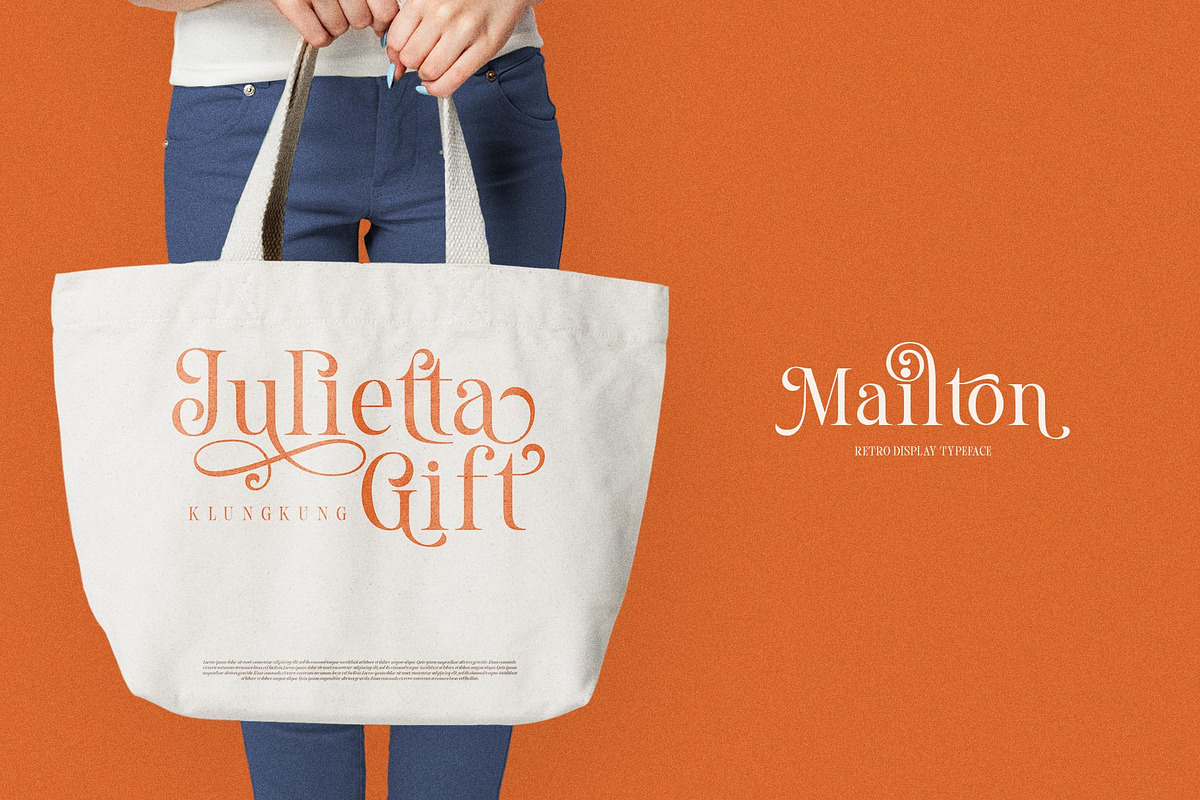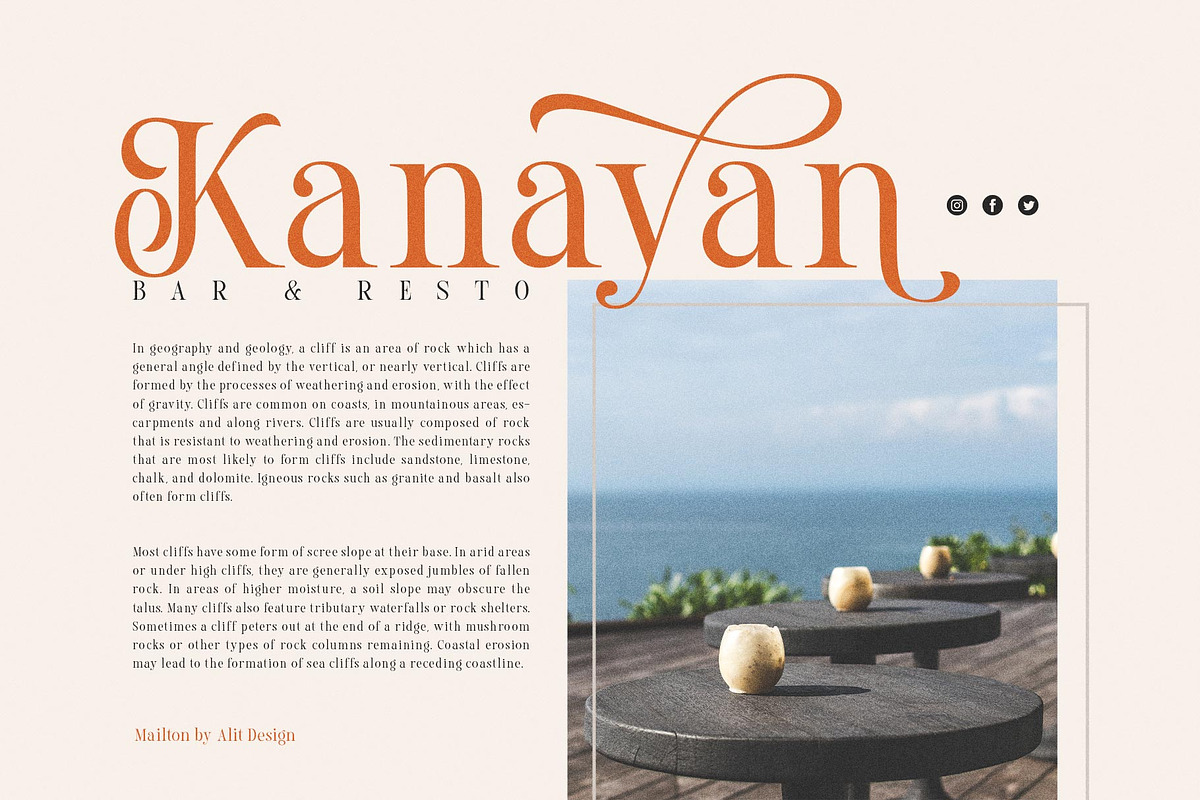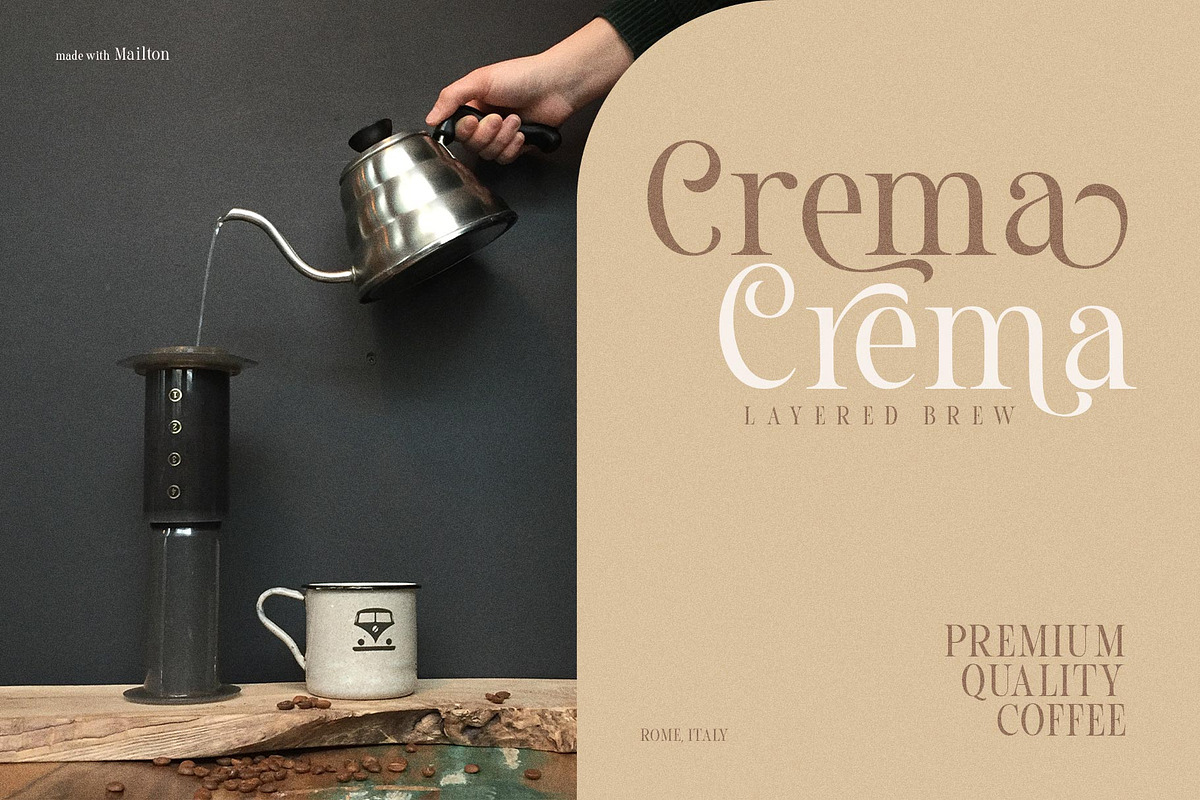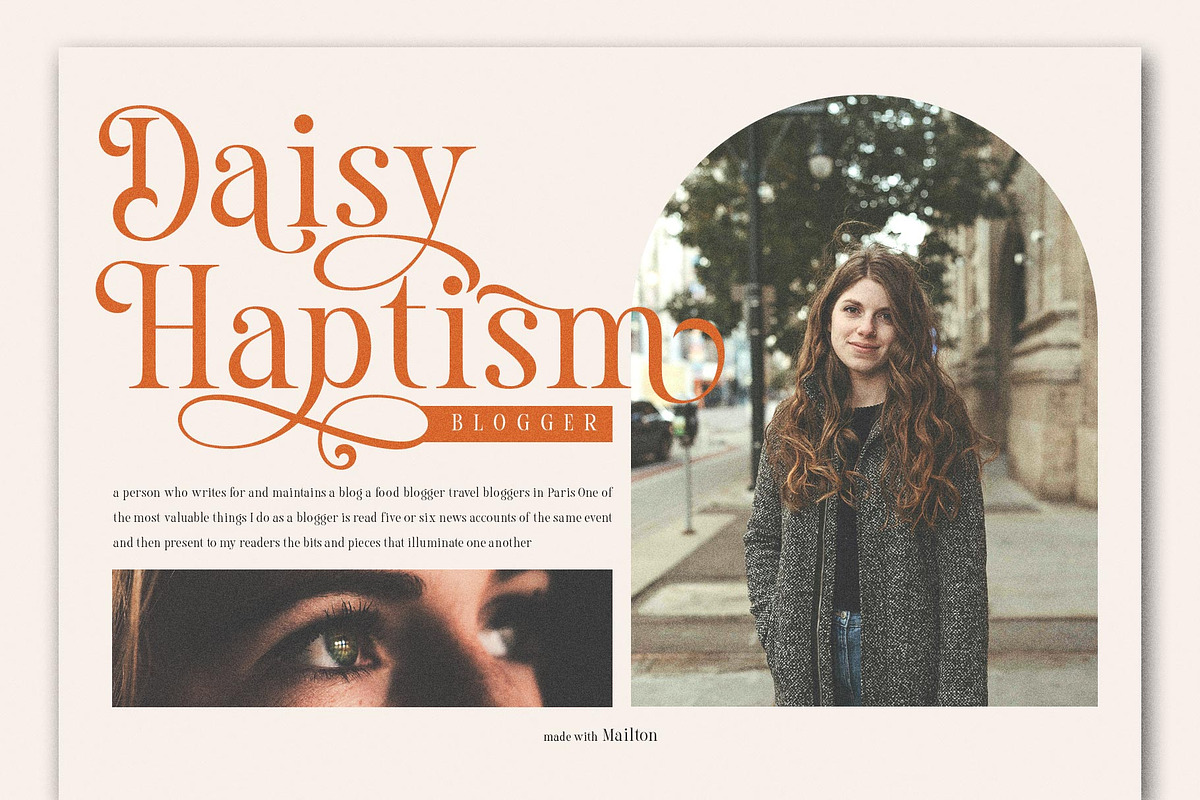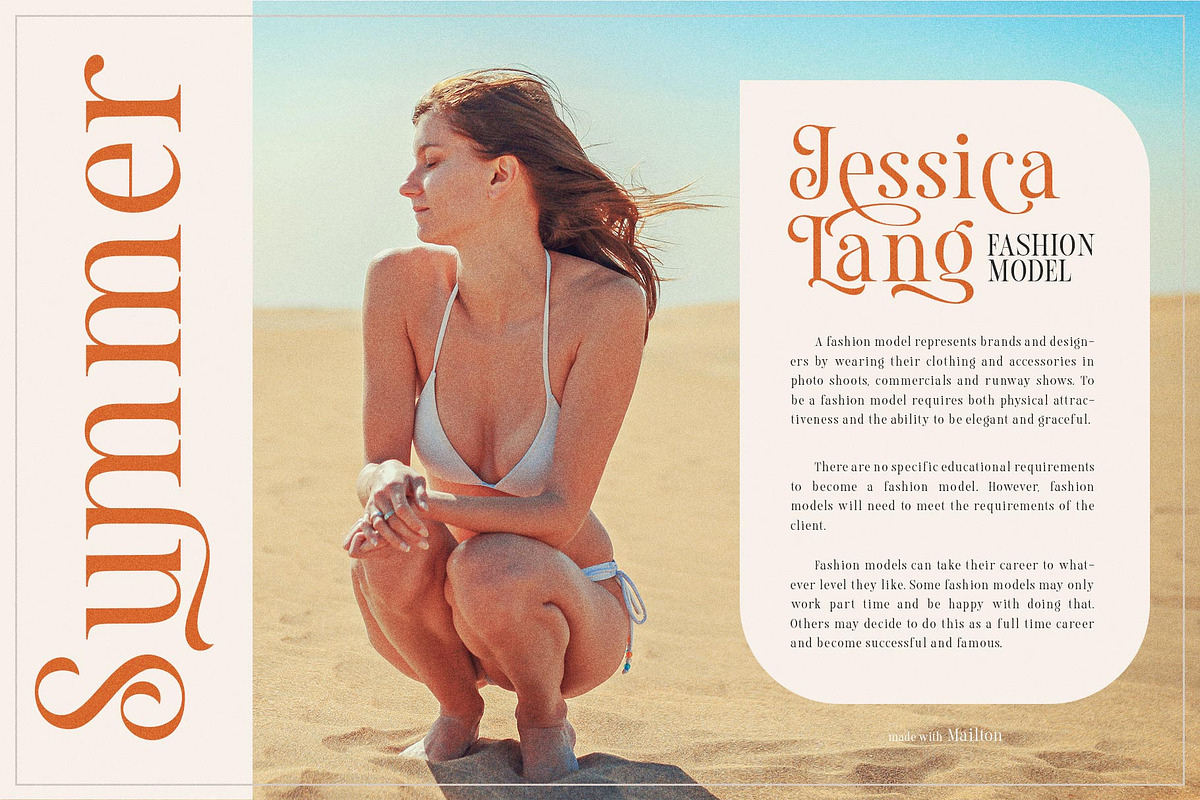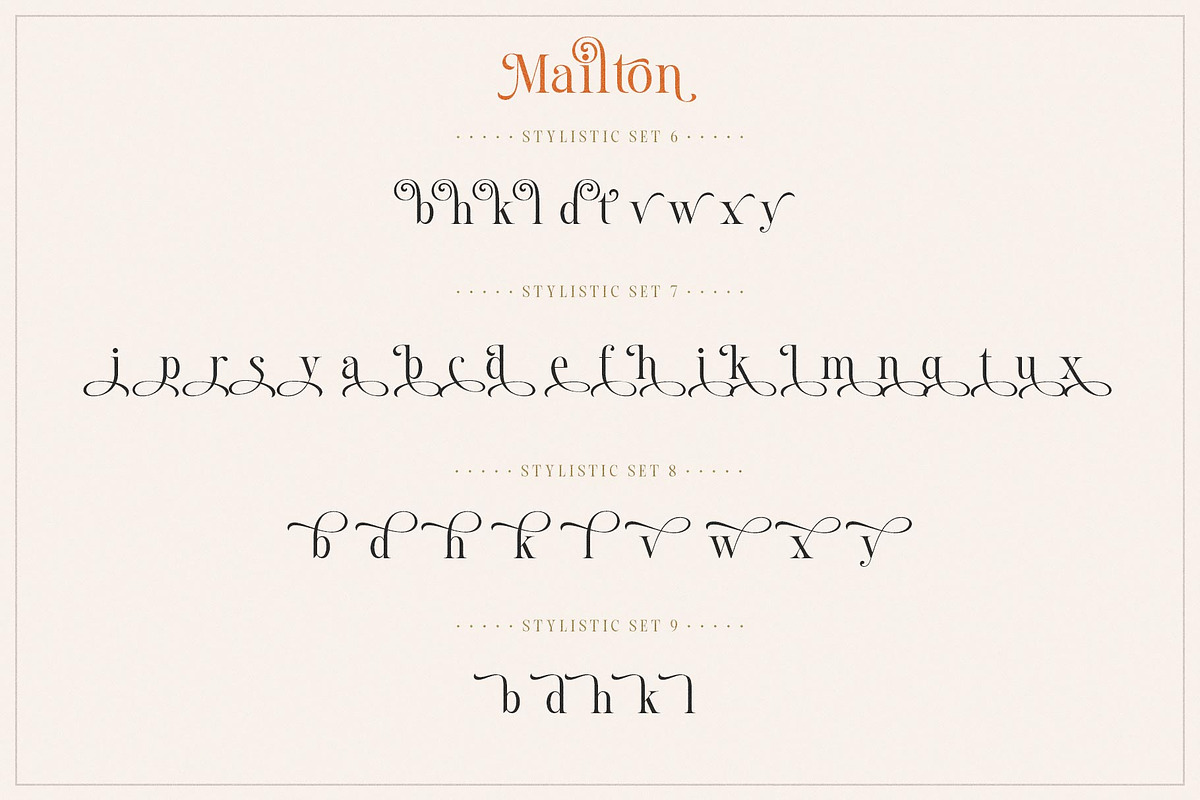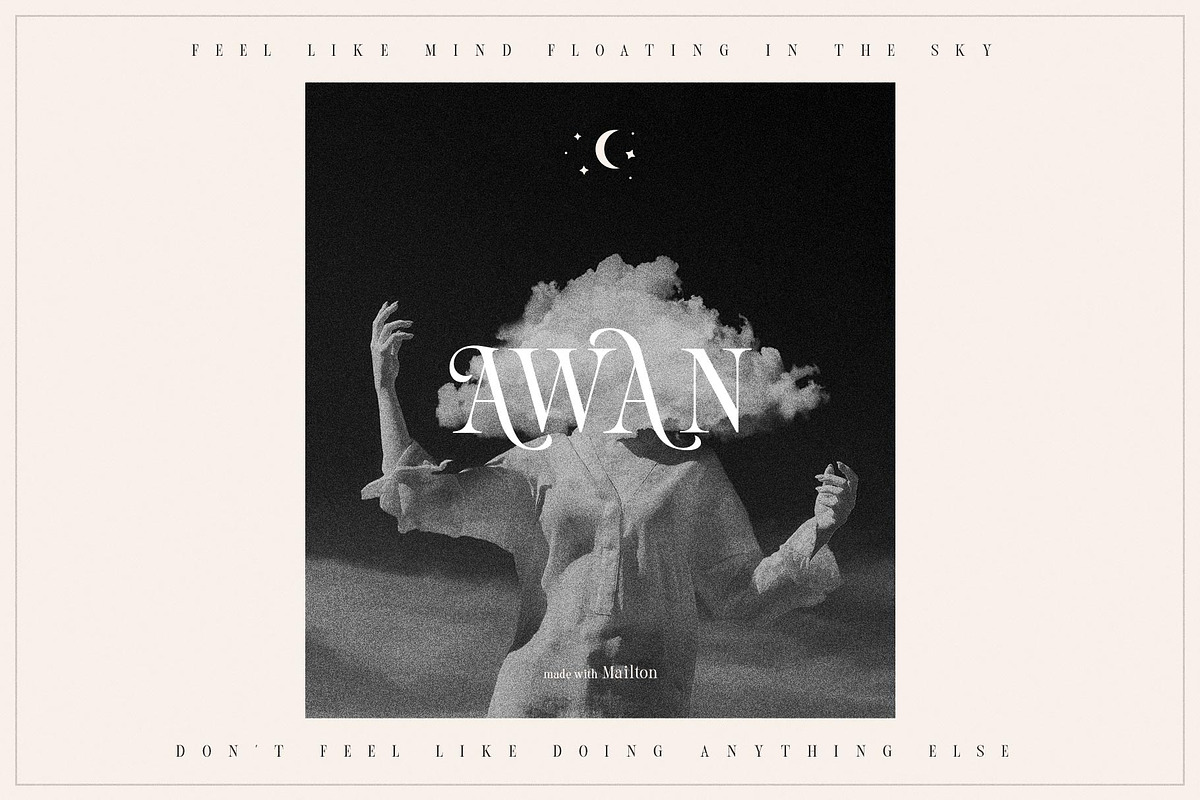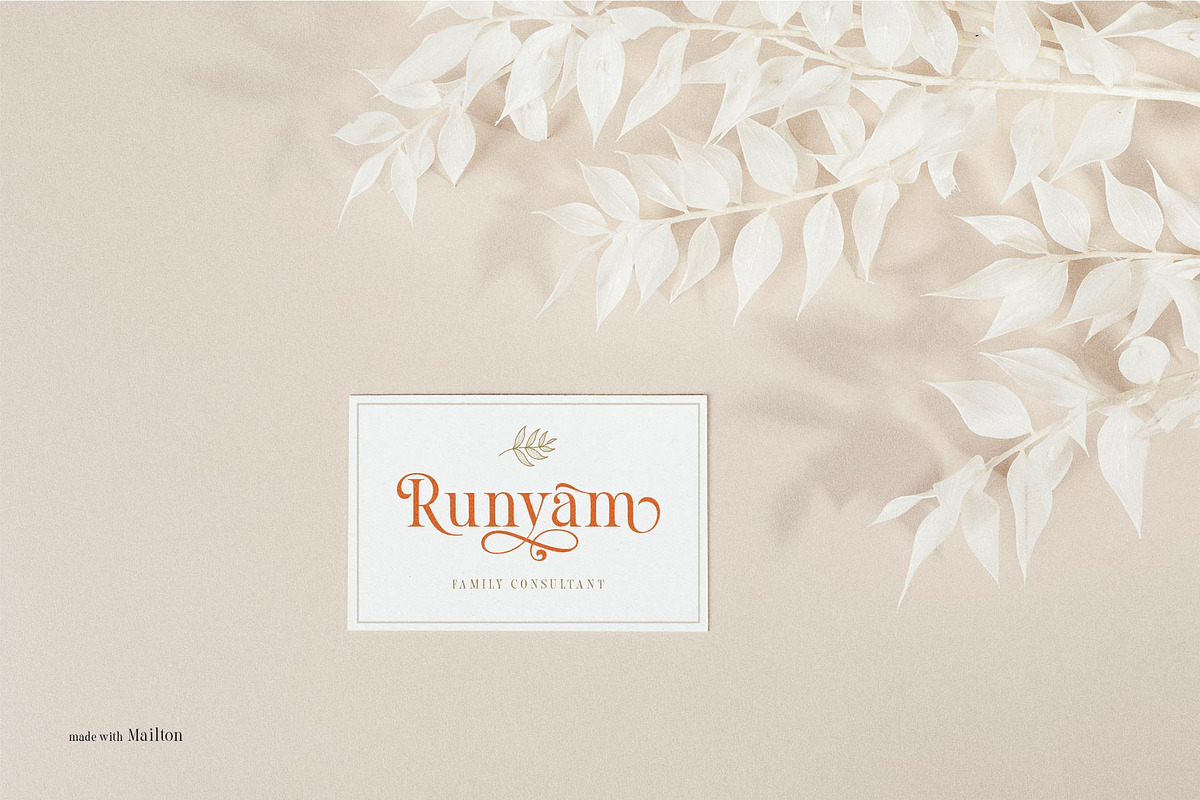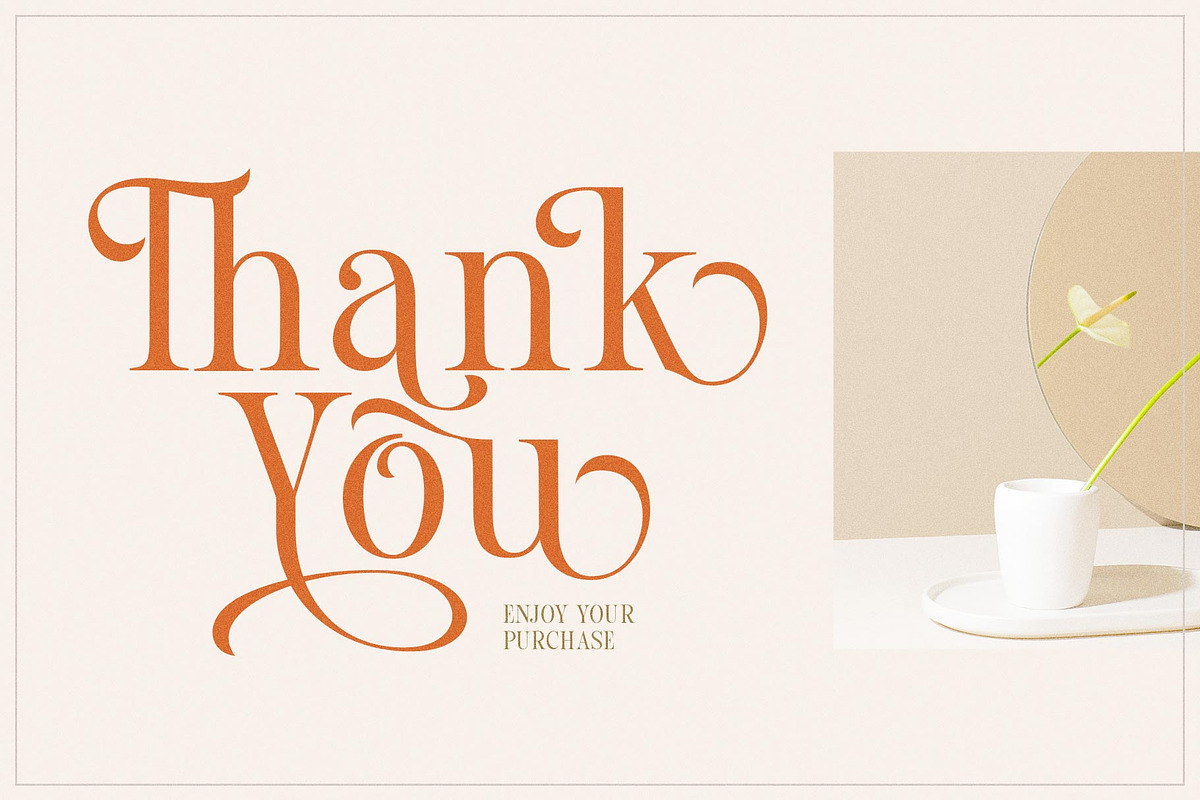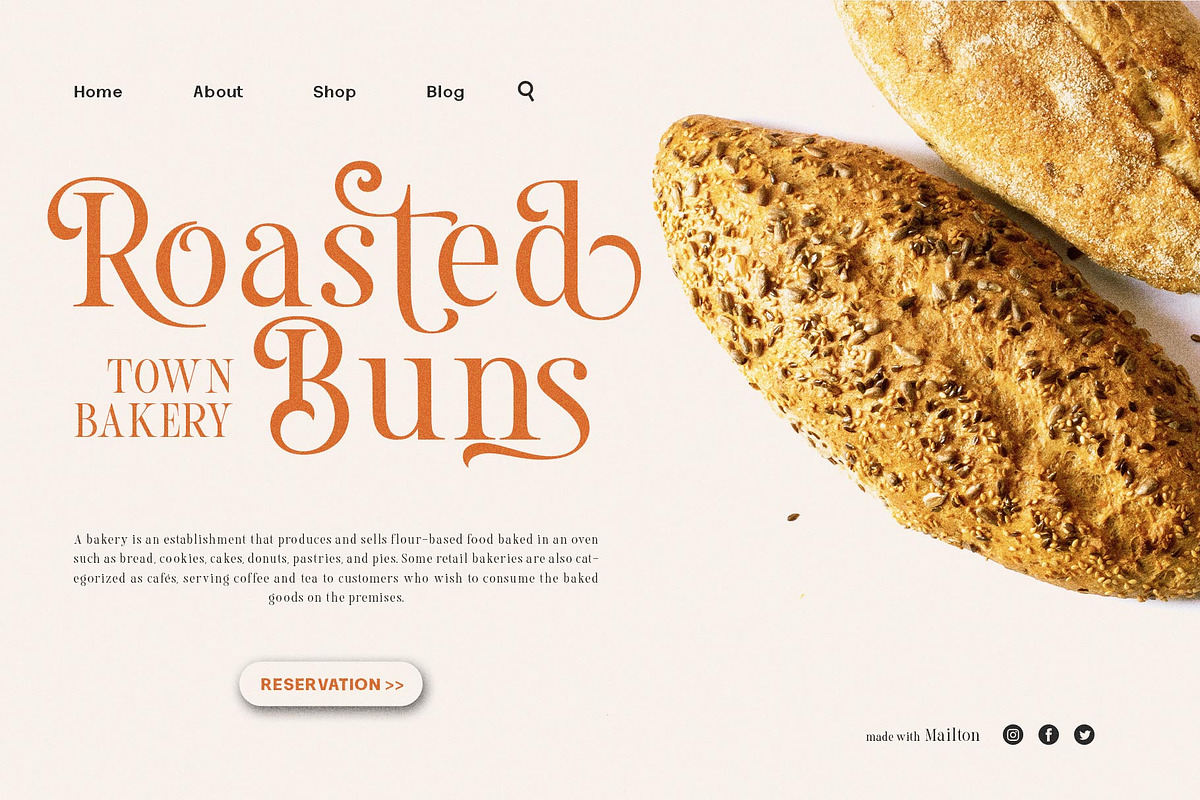
Mailton Typeface
🍃Introducing Mailton typeface🍃
The Mailton Serif typeface is an elegantly themed font that has a dynamic serif style. The details of the shape of the "Mailton Serif Elegant typeface" are very smooth and flow to create unique and beautiful curves. Elegant Serif typefaces such as “Mailton typeface” are very easy to apply to any design, especially those with an elegant and smooth concept, besides that this font is very easy to use both in design and non-design programs because everything changes and glyphs are supported by Unicode (PUA).
The Mailton typeface contains 750 glyphs with many unique and interesting alternative options.
Language Support : Latin, Basic, Western European, Central European, South European,Vietnamese,